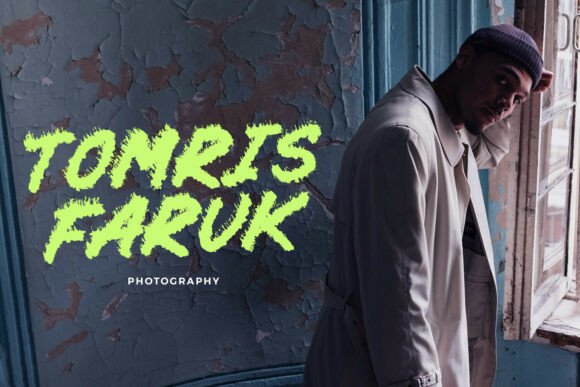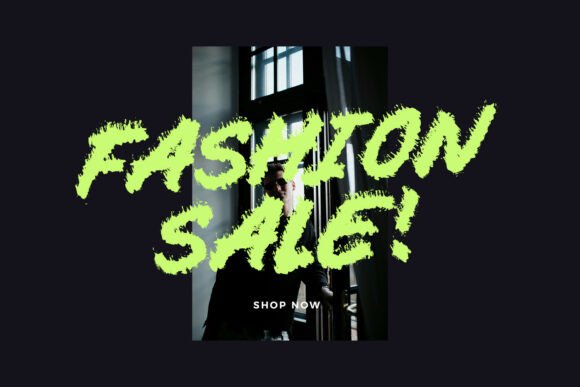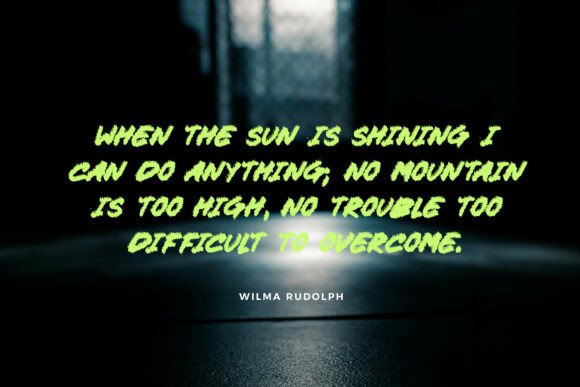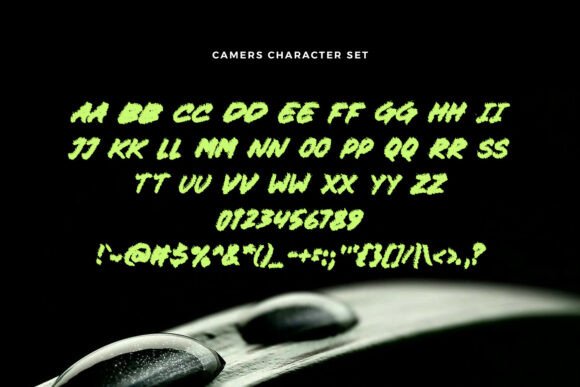
Introducing Camers Font: Unleash the Power of Textured Brush Style
Are you tired of using the same old fonts for your designs? Look no further than Camers Font, a game-changing textured brush font that’s about to take your creative projects to the next level. Inspired by the natural texture of real brush lettering, Camers delivers a strong artistic character with dynamic movement, perfect for designers and crafters seeking a bold and expressive visual impact.
The Unique Characteristics of Camers Font
Camers Font is designed with bold strokes and rich hand-painted detail, giving it a distinctive look that’s both rough and refined. The rough brush edges and organic forms create depth and personality, making it an excellent choice for projects that require a touch of artistic flair. Whether you’re working on branding, logos, headlines, posters, social media graphics, packaging, or creative projects, Camers Font is the perfect tool to add a dash of creativity and visual interest.
What Makes Camers Font Stand Out?
- Textured Brush Style: Camers Font boasts a unique textured brush style that mimics the natural texture of real brush lettering. This gives your designs a hand-crafted, organic feel that’s sure to capture attention.
- Bold Strokes and Rich Detail: The font’s bold strokes and rich hand-painted detail create a dynamic, expressive look that’s perfect for making a statement.
- Clear Readability: Despite its textured, organic appearance, Camers Font maintains clear readability, making it suitable for a wide range of applications, from headlines to body text.
- Versatility: Camers Font is an incredibly versatile font that can be used for various design projects, including branding, logos, packaging, and more.
Camers Font is a dream come true for designers and crafters seeking a font that can add a touch of personality to their work. Whether you’re creating:
- Branding and Logos: Use Camers Font to create a bold, eye-catching logo that sets your brand apart.
- Headlines and Posters: Add a pop of personality to your headlines and posters with Camers Font’s dynamic, textured brush style.
- Social Media Graphics: Elevate your social media graphics with Camers Font’s unique, hand-crafted look.
- Packaging: Use Camers Font to create eye-catching packaging that stands out on store shelves.
Tips for Using Camers Font Effectively
To get the most out of Camers Font, here are some tips to keep in mind:
- Experiment with Colors: Camers Font looks great in bold, bright colors. Experiment with different hues to find the perfect match for your design.
- Play with Texture: Take advantage of Camers Font’s textured brush style by combining it with other textures and patterns.
- Vary Font Sizes: Use Camers Font in different sizes to create visual interest and hierarchy in your designs.
Camers Font is a game-changing textured brush font that’s perfect for designers and crafters seeking a bold, expressive visual impact. With its unique characteristics, versatility, and clear readability, Camers Font is an excellent addition to any design project. So why wait? Unleash the power of Camers Font and take your designs to the next level!